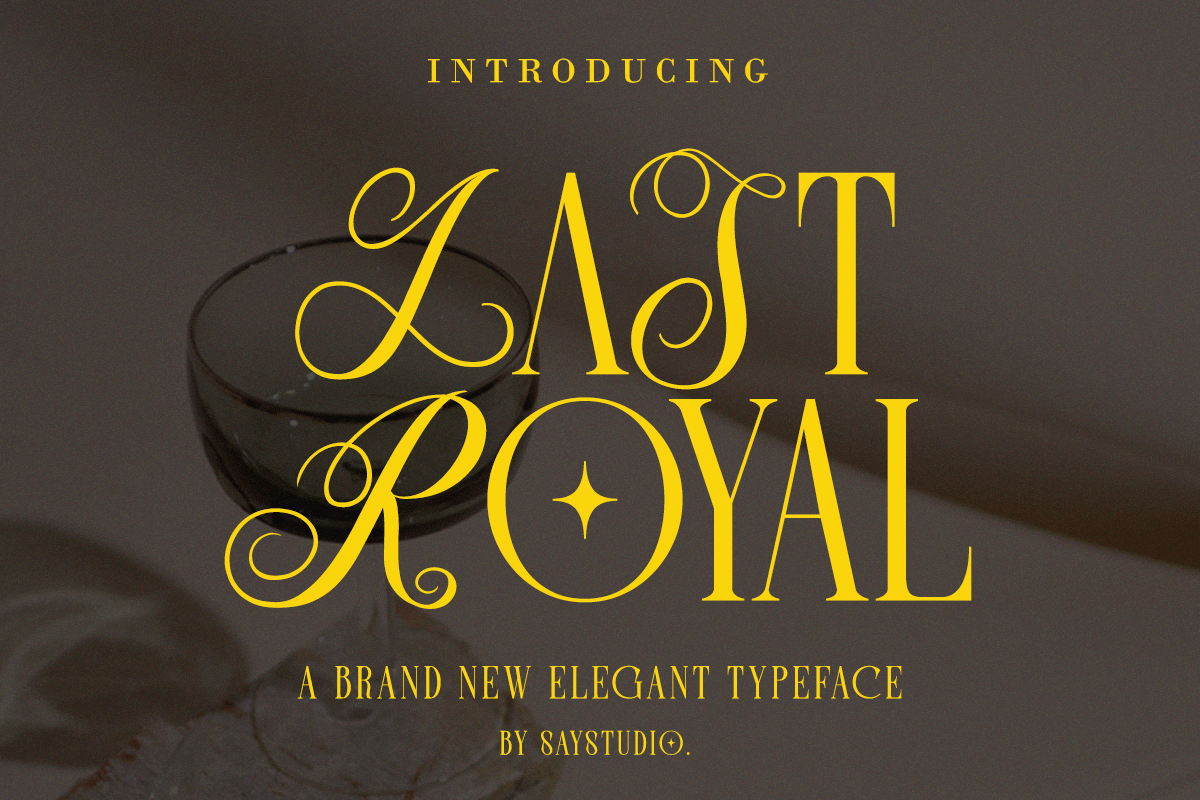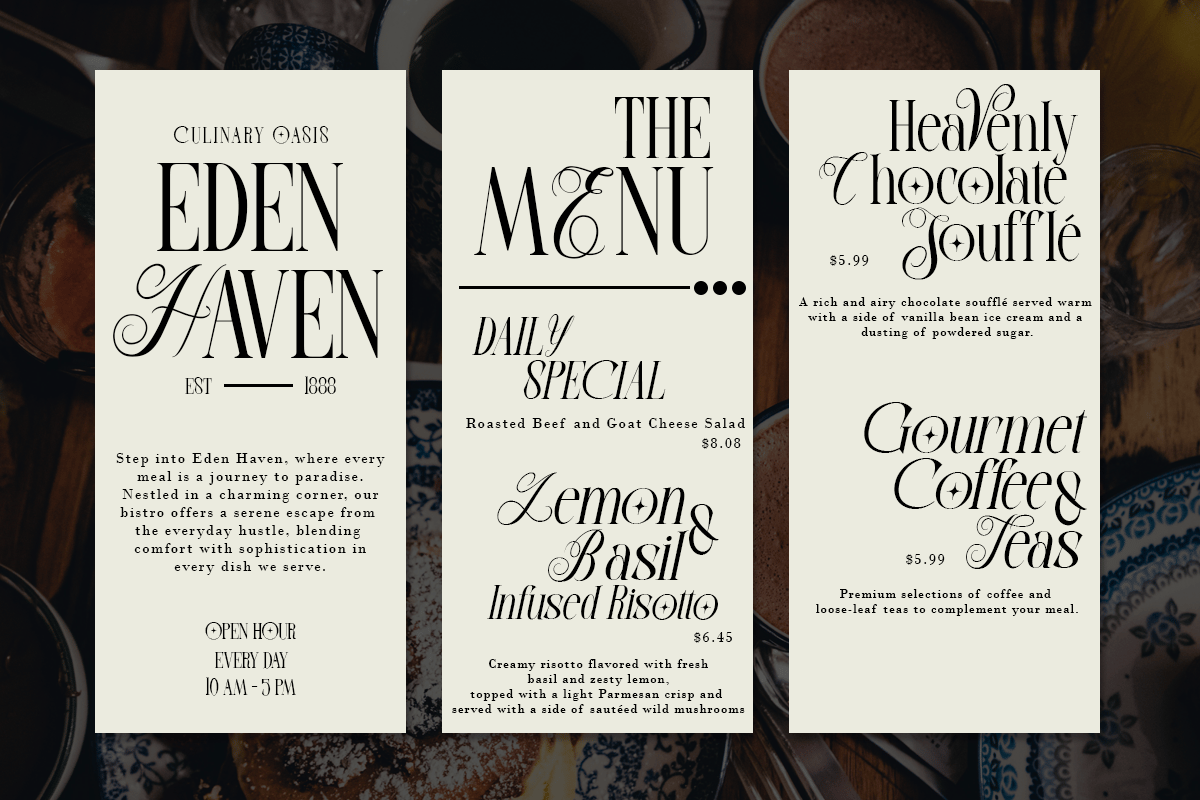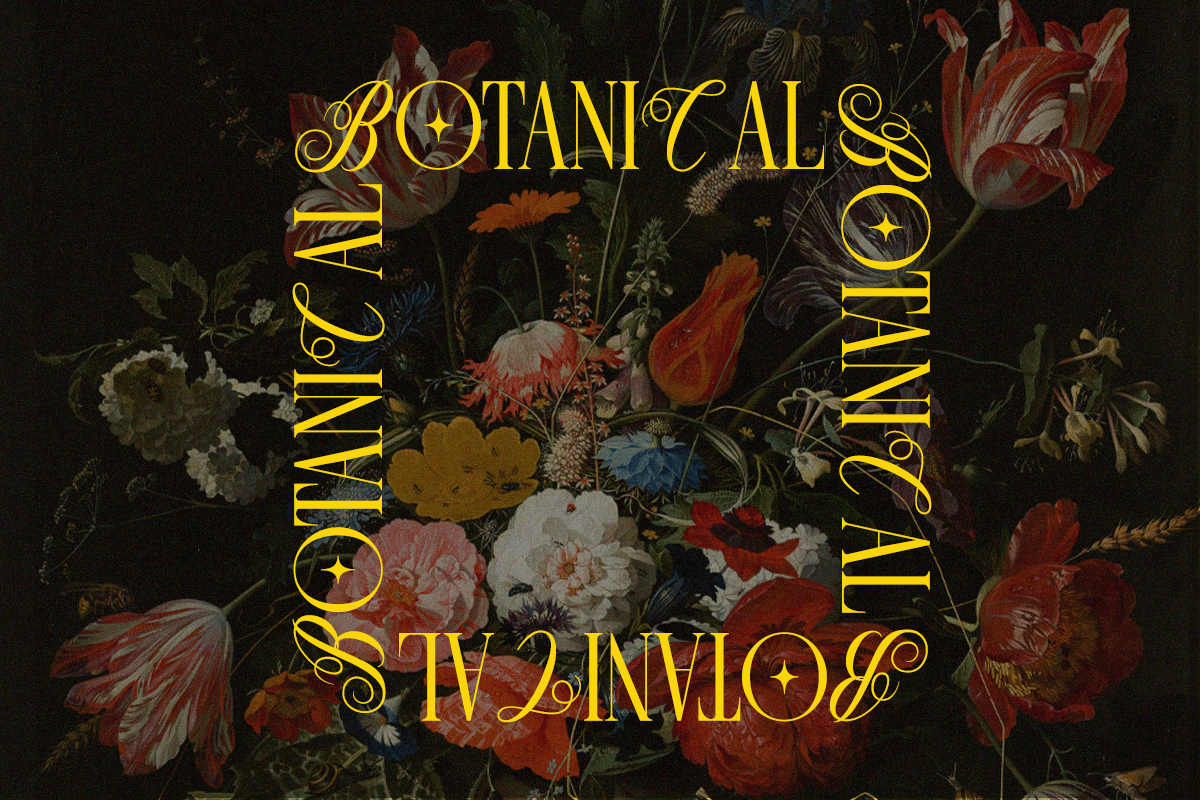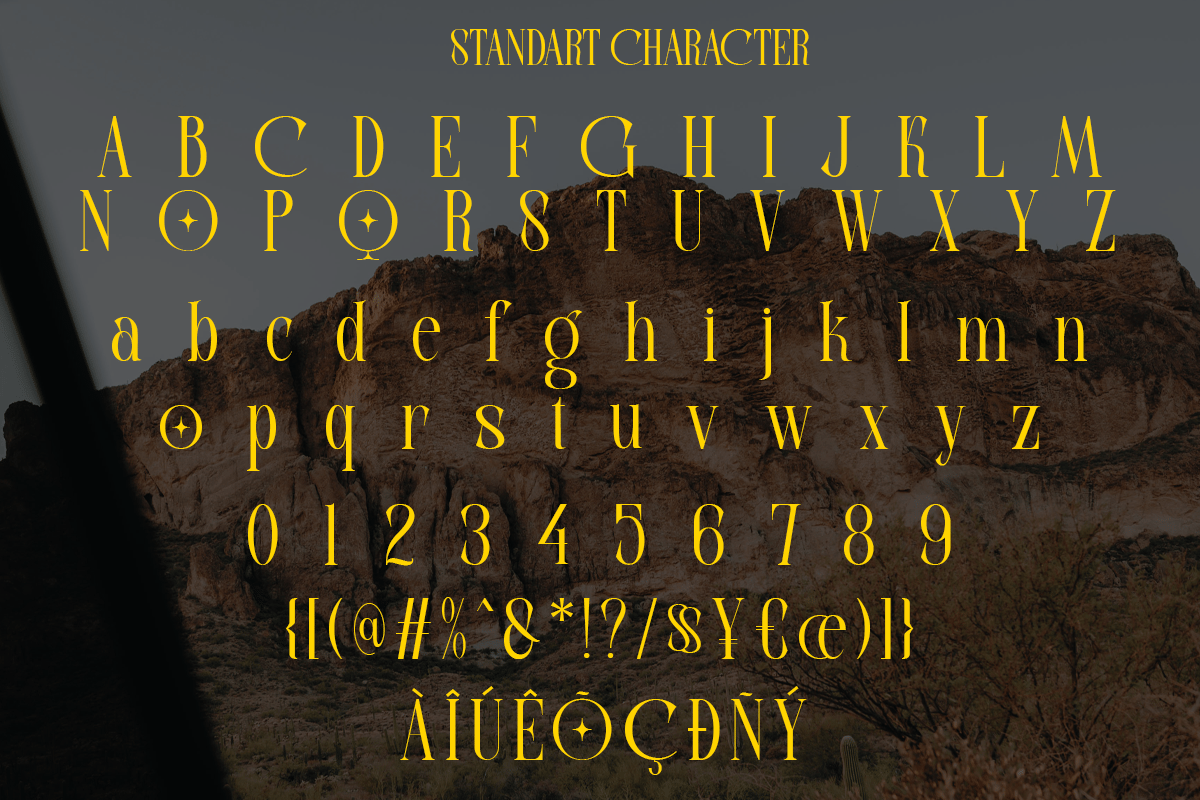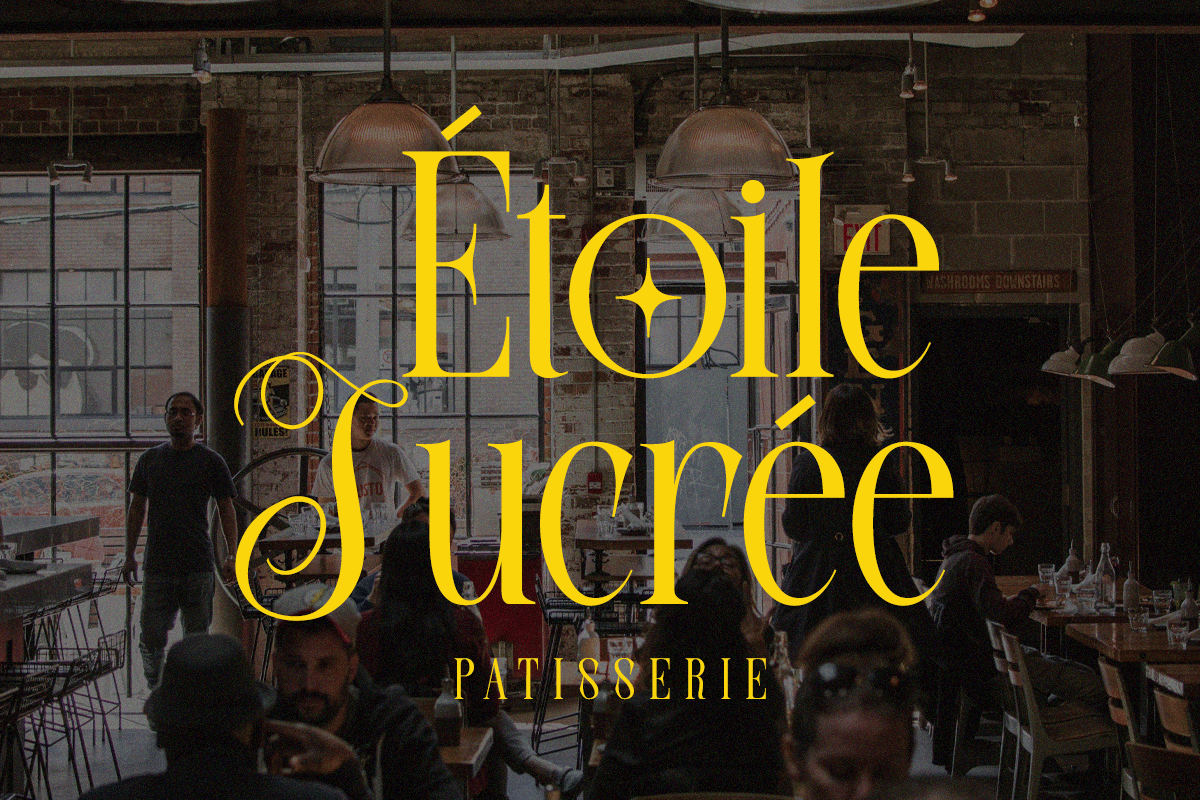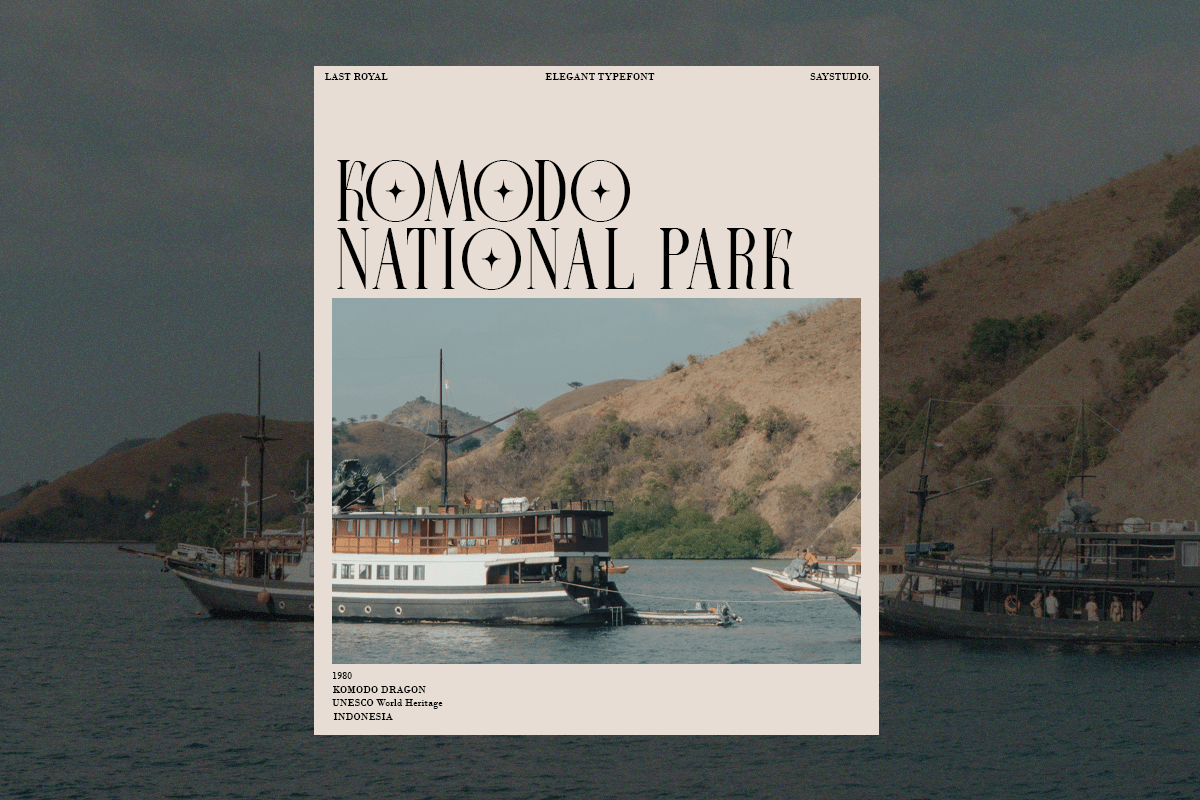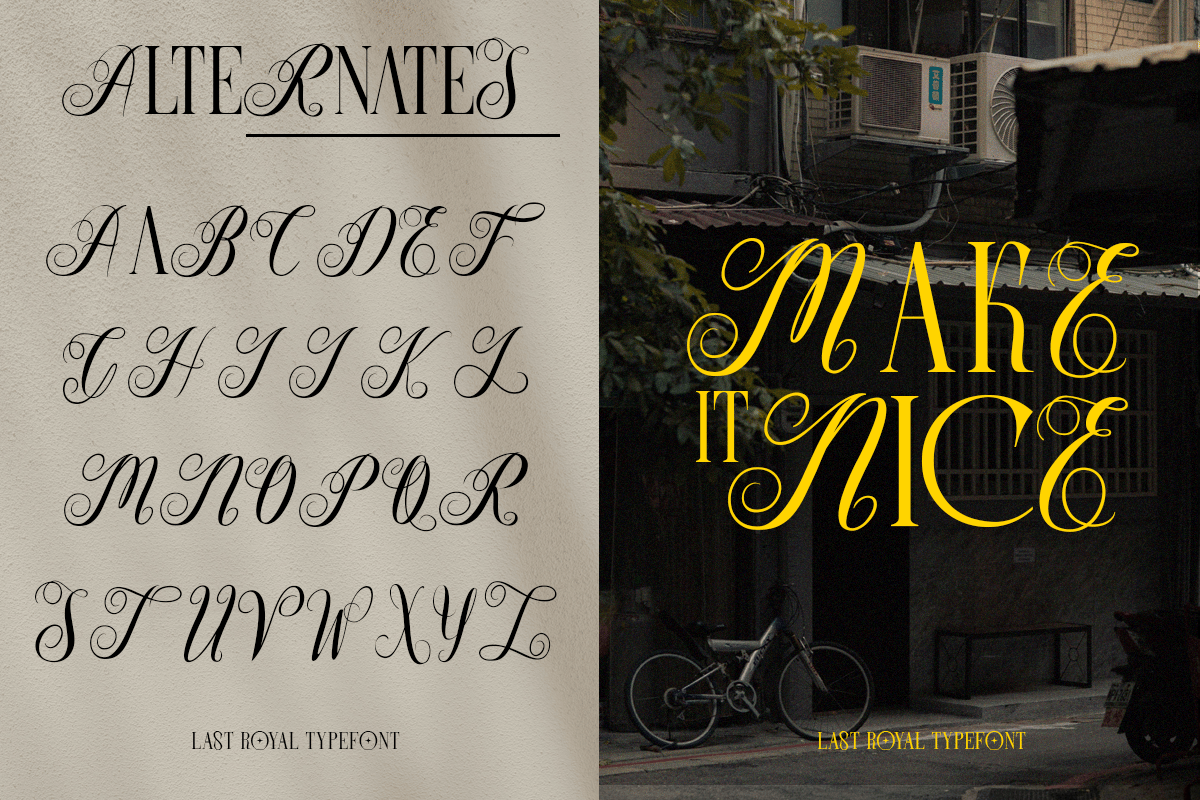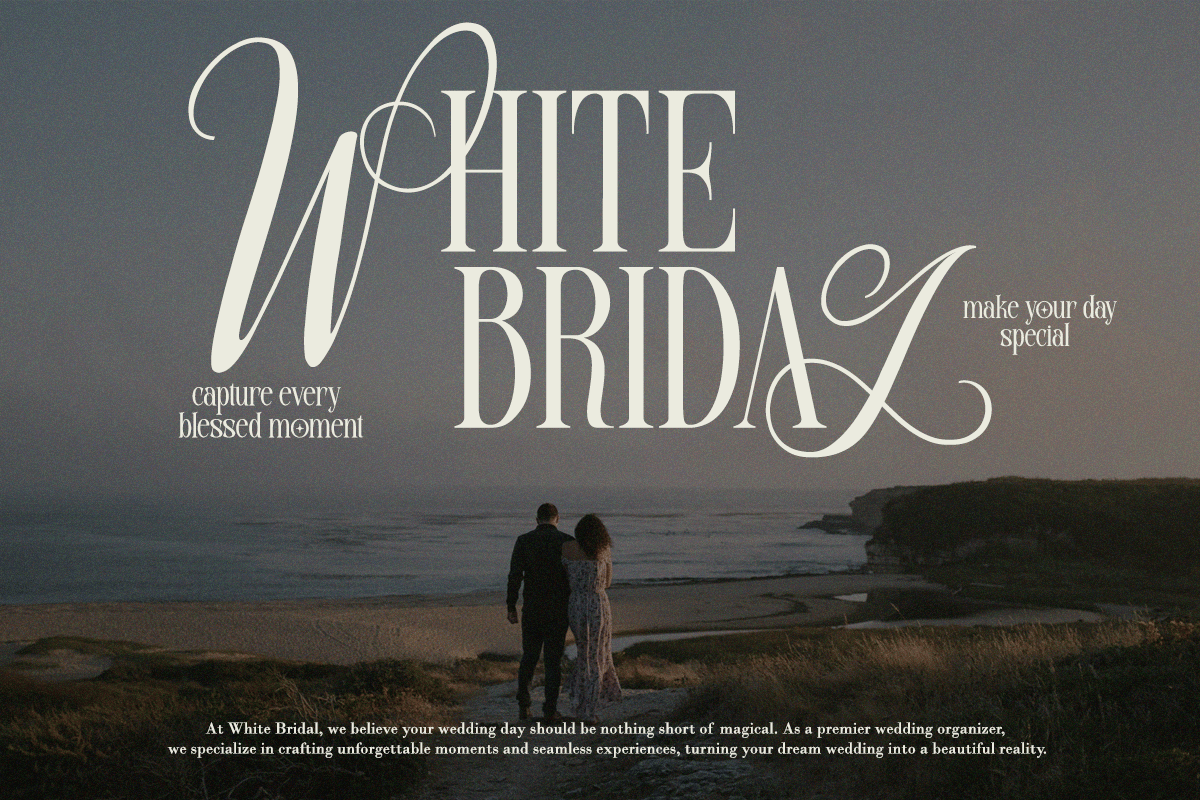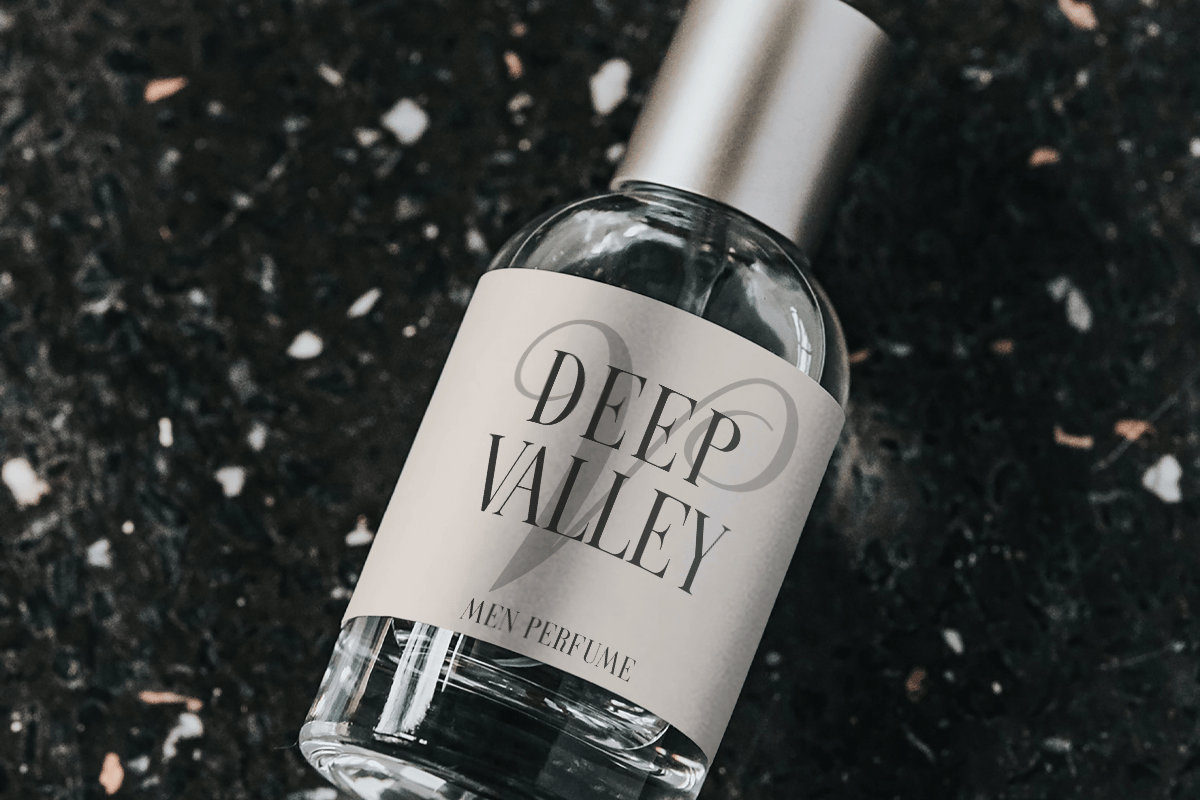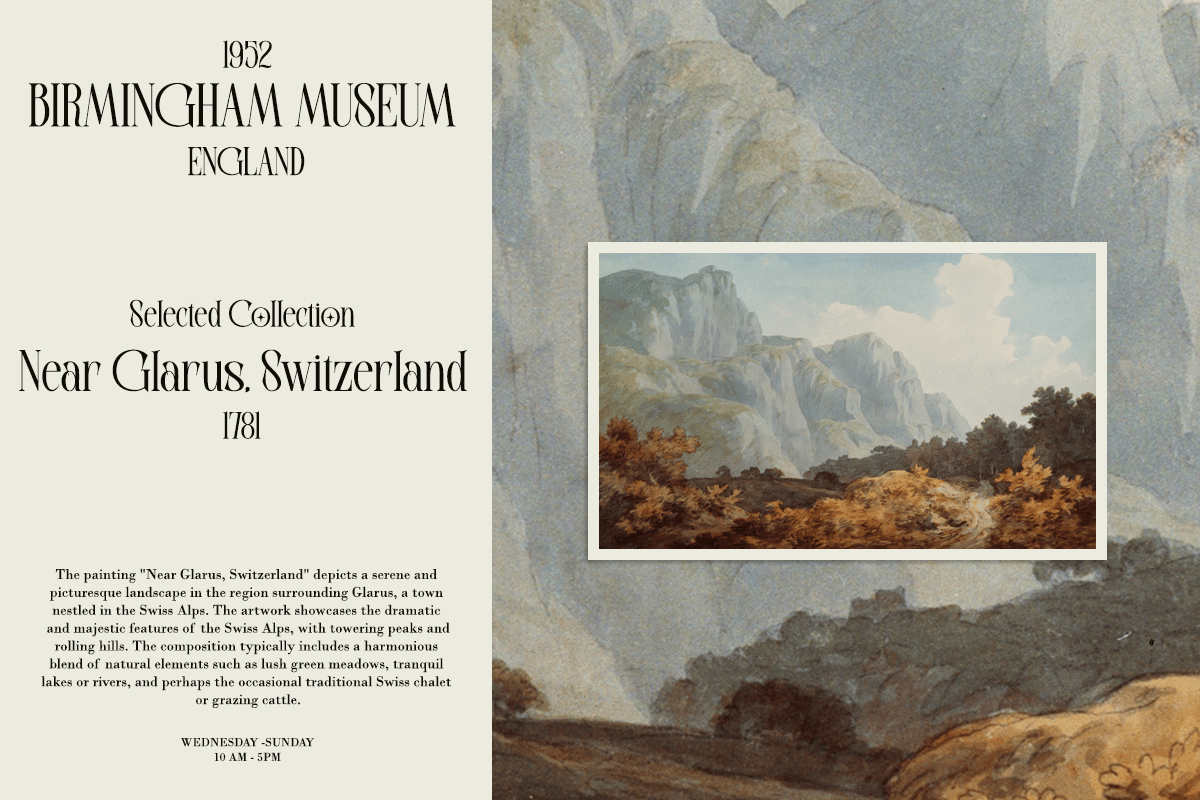
Last Royal – Elegant Luxury Font
Last Royal – Elegant Serif & Script.
Serif font is a timeless, classic typography. The capital letters of the script are large and prominent, which gives this typeface a distinct look. Play with your letter spacing to add even more class to your designs. Perfect for titles, branding, wedding invitations, fashion branding, packaging and web design.